20 Best Tattoo Fonts To Make Your Tattoo Stand Out
Searching for the best tattoo fonts to give your ink a unique edge? Your quest for perfect design typography ends here.
In this comprehensive guide, we’ve meticulously curated a collection of great fonts for tattoos that will elevate your tattoo and make it stand out in the crowd.
Whether you love elegant scripts or bold lettering, we’ve got something for every ink enthusiast.
Let’s dive in and discover the popular tattoo fonts to express your individuality!
1. The Quality Brave Typeface – Tattoo Fonts
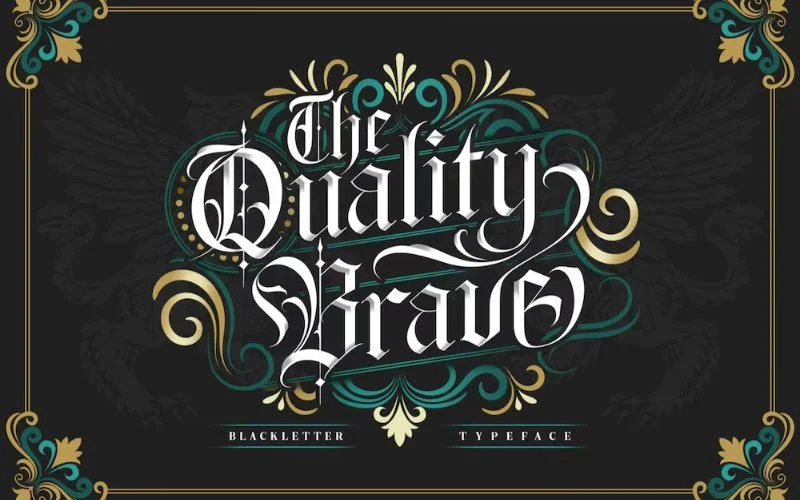
The Quality Brave Typeface embodies a sleek and daring aesthetic, making it an ideal choice for tattoo designs seeking a bold and commanding presence.
This font’s distinctive decorative elements inject personality and charisma into every tattoo it adorns.
This font promises to elevate your tattoo to unparalleled quality and style.
2. Bashope Font
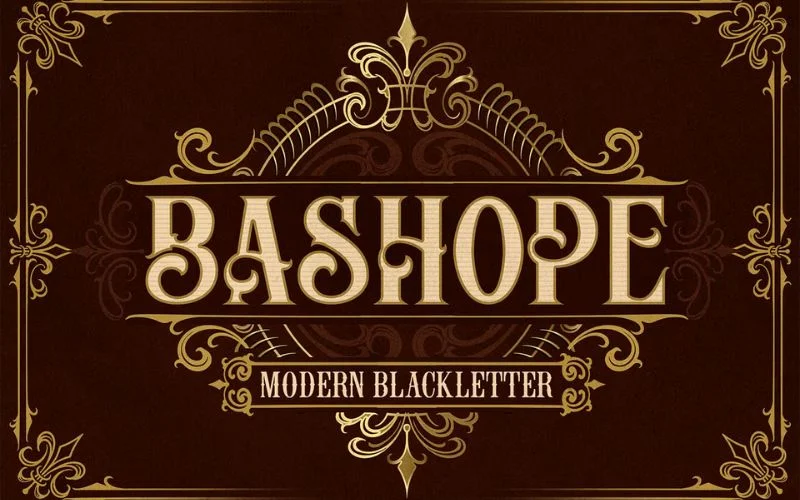
The Bashope font has a vintage charm and elegance, making it a cool font for tattoo. Its timeless appeal and bold lettering create a striking statement on the skin.
If you’re in search for a nice font for tattoo that balances simplicity with sophistication, look no further than Bashope.
3. Yoda Font
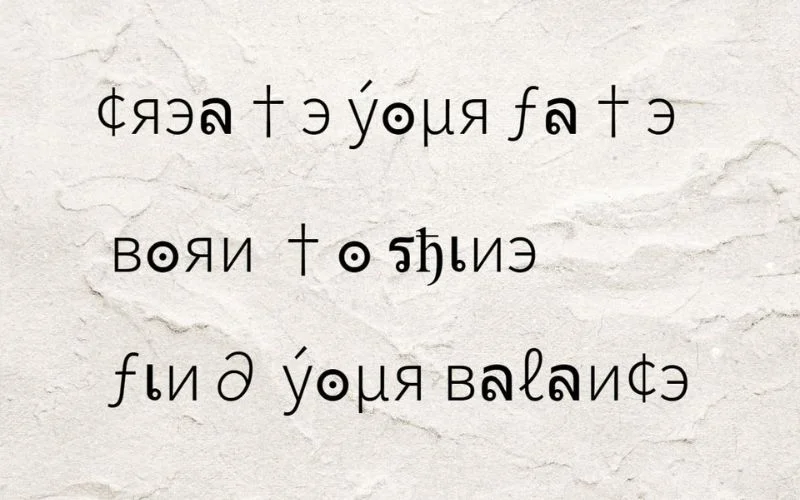
Looking to make your text tattoo stand out? Consider using Yoda tattoo fonts. These fonts are more than just cool lettering for tattoos; they express feelings subtly but powerfully. Inspired by the wisdom of Star Wars Yoda, they add depth and meaning to your art.
If you want a tattoo that leaves a lasting emotional impression, this is a great choice.
4. Karmila Script Tattoo Font
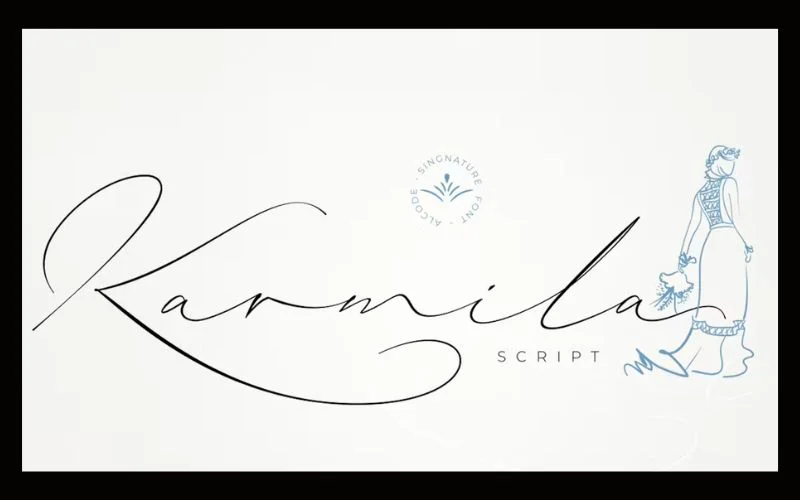
If you like modern and simple styles, you might want to choose a flowing cursive or a sleek serif font for your tattoo.
Karmila has smooth strokes that make the letters feel personalized as if they were handwritten just for you. This would be a good option to add to your list of the best tattoo fonts for women.
5. Blackletter Fonts
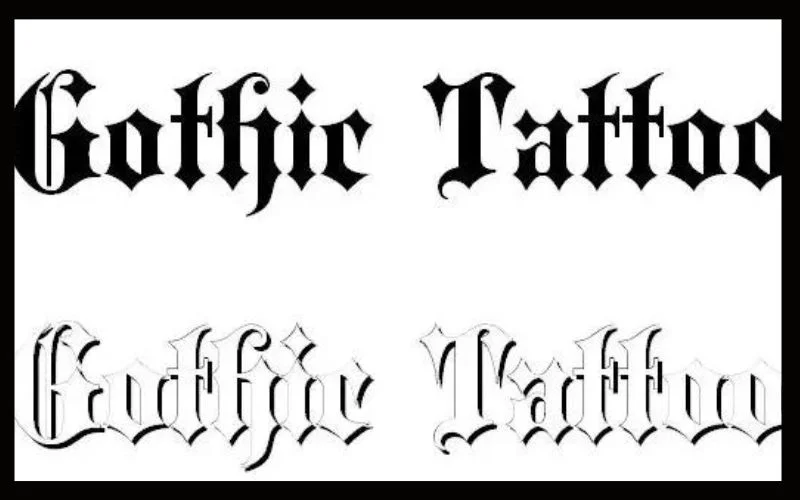
Blackletter is a strong, Gothic-style design font that comes in two versions: standard and outline. It’s perfect for commercial use and easily downloaded in TTF format.
Blackletter is an excellent choice for those seeking a somewhat classy tattoo font yet eye-catching design.
6. Fraktur Font
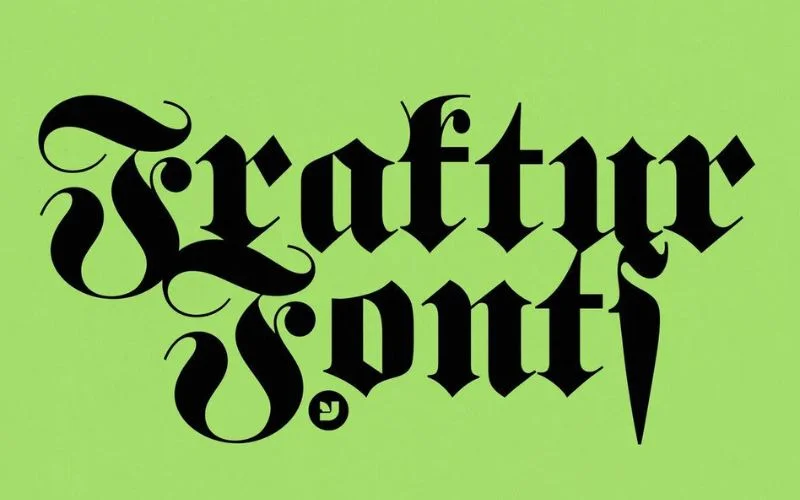
Fraktur is a fascinating tattoo font loved for its cool and gothic style. It brings a sense of dark charm and history, making it a hit for those wanting to add mystery and elegance to their tattoos.
With its bold and intricate characters, Fraktur works well for various tattoo designs, be it quotes or detailed design patterns. It is also the best font for name tattoos. Its distinct gothic appeal makes it stand out among tattoo fonts, perfect for those wanting to make a bold statement with ink.
7. Harlend Script – Tattoo Font For Men
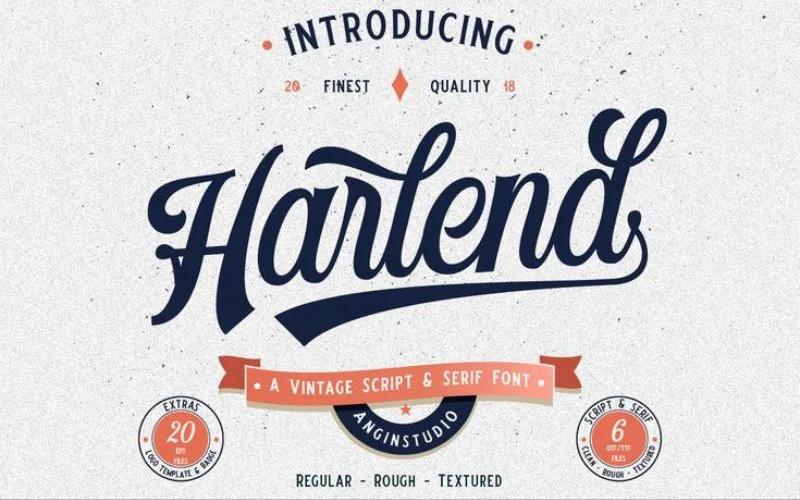
Harlend Script Font is a handwritten style that shines on tattoos. Its vintage vibe adds a special touch, especially its cursive letters, which are ideal for creating delicate and feminine designs.
Whether you’re a woman or a man, this font will complement your tattoo beautifully. This would be the best tattoo font for men who like a rugged look.
8. Double Struck Font
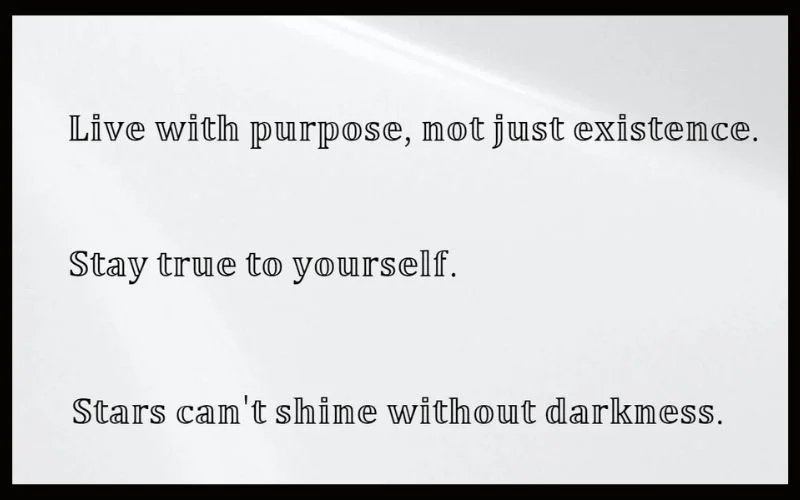
If you want your quote tattoos to stand out, consider Double Struck, a text font with a special twist. Double Struck’s clever design makes it unique, which includes blank space within the letters or alphabet.
This special touch adds more creativity and visual interest to your tattooed quotes. With Double Struck, your words become dynamic and artistic, thanks to the font’s use of negative space to highlight the positive message in your quote.
9. Pinders Classic Tattoo Font
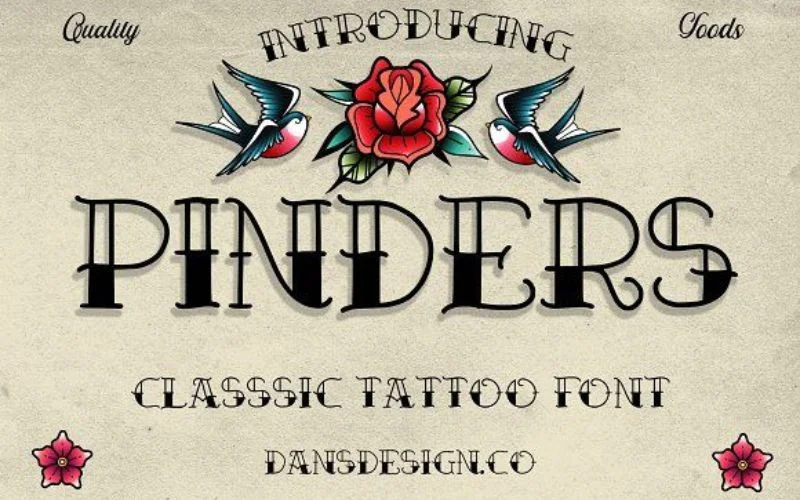
Pinders Classic Tattoo Font is a vintage-style design font perfect for traditional tattoos. Unique tattoo fonts for men can add a personal touch to their body art.
It’s straightforward and clear, making it ideal for text tattoos. It’s one of the top choices for men’s tattoos.
10. Angel Tears – Best Tattoo Fonts
Angel Tears might be the perfect tattoo font if you want a poetic touch in your projects. Its style complements ink, making it visually appealing.